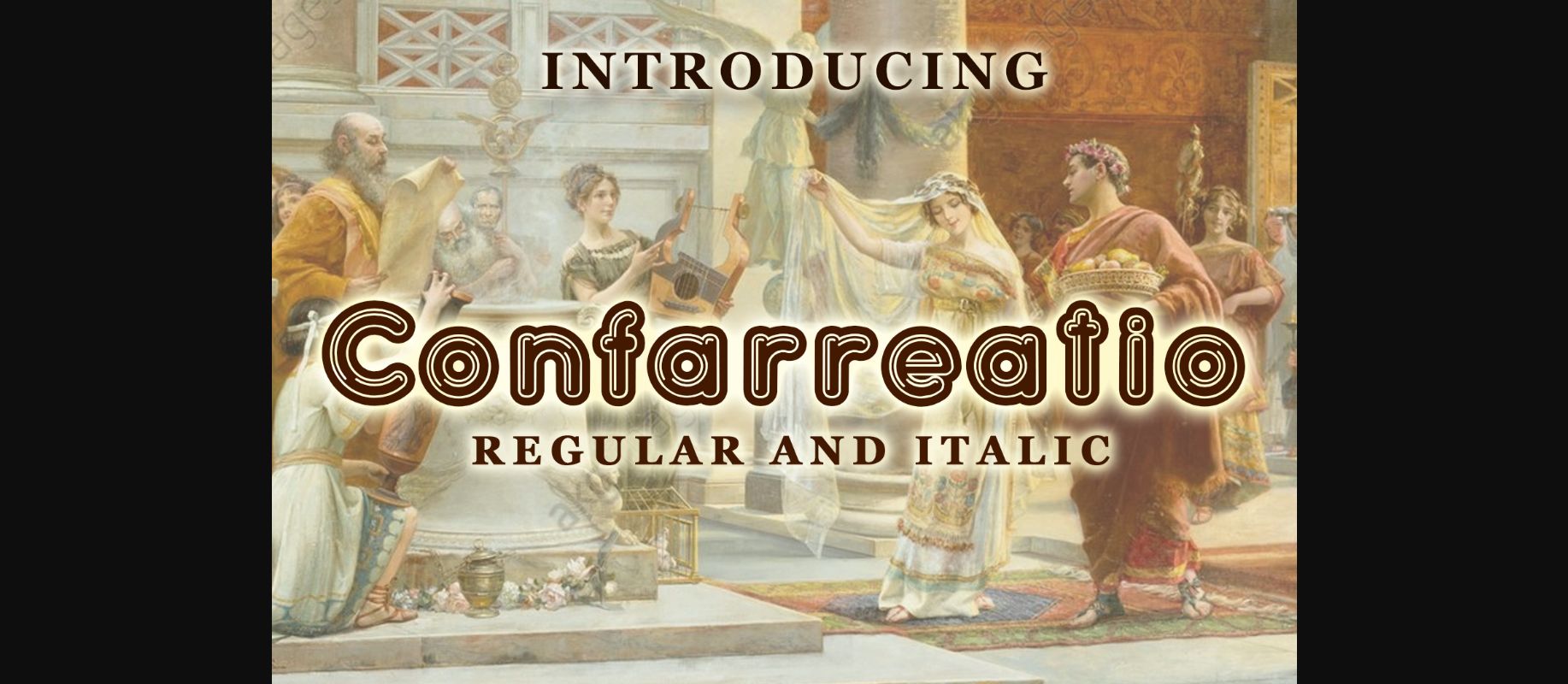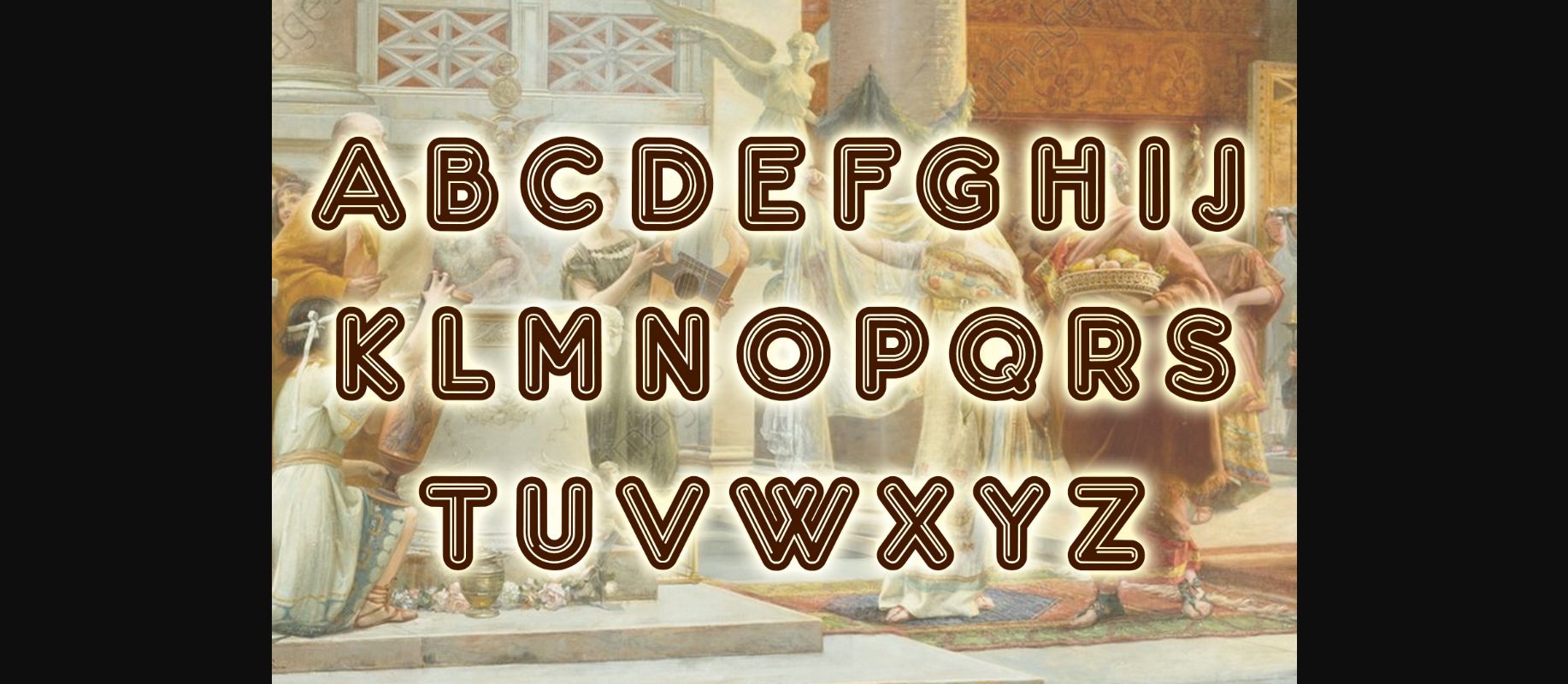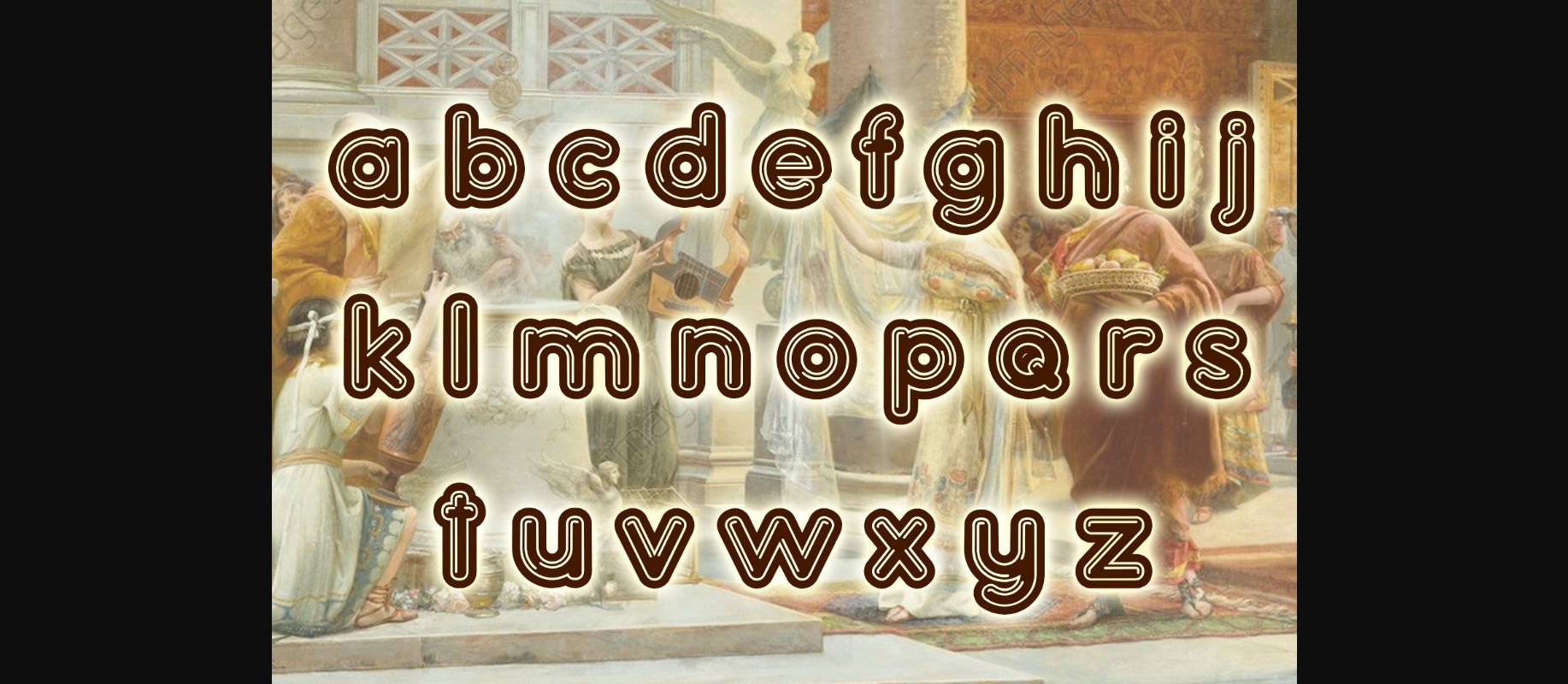
About Confarreatio Font
The Confarreatio is an awesome bubbly font that comes in a regular and italic variant. It will look awesome on headlines, flyers, shirts and various prints.